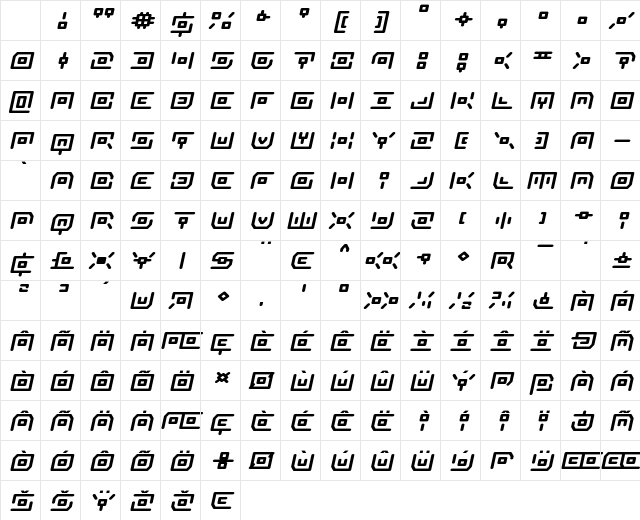
Complete Neon Circuit Expanded Italic glyph index. Displaying only characters natively supported by Neon Circuit Expanded Italic font.
Neon Circuit Expanded Italic has a distinctly futuristic character, with geometric precision and clean angles that feel at home in technology, gaming, and sci-fi contexts. The slanted form adds forward momentum and visual energy.